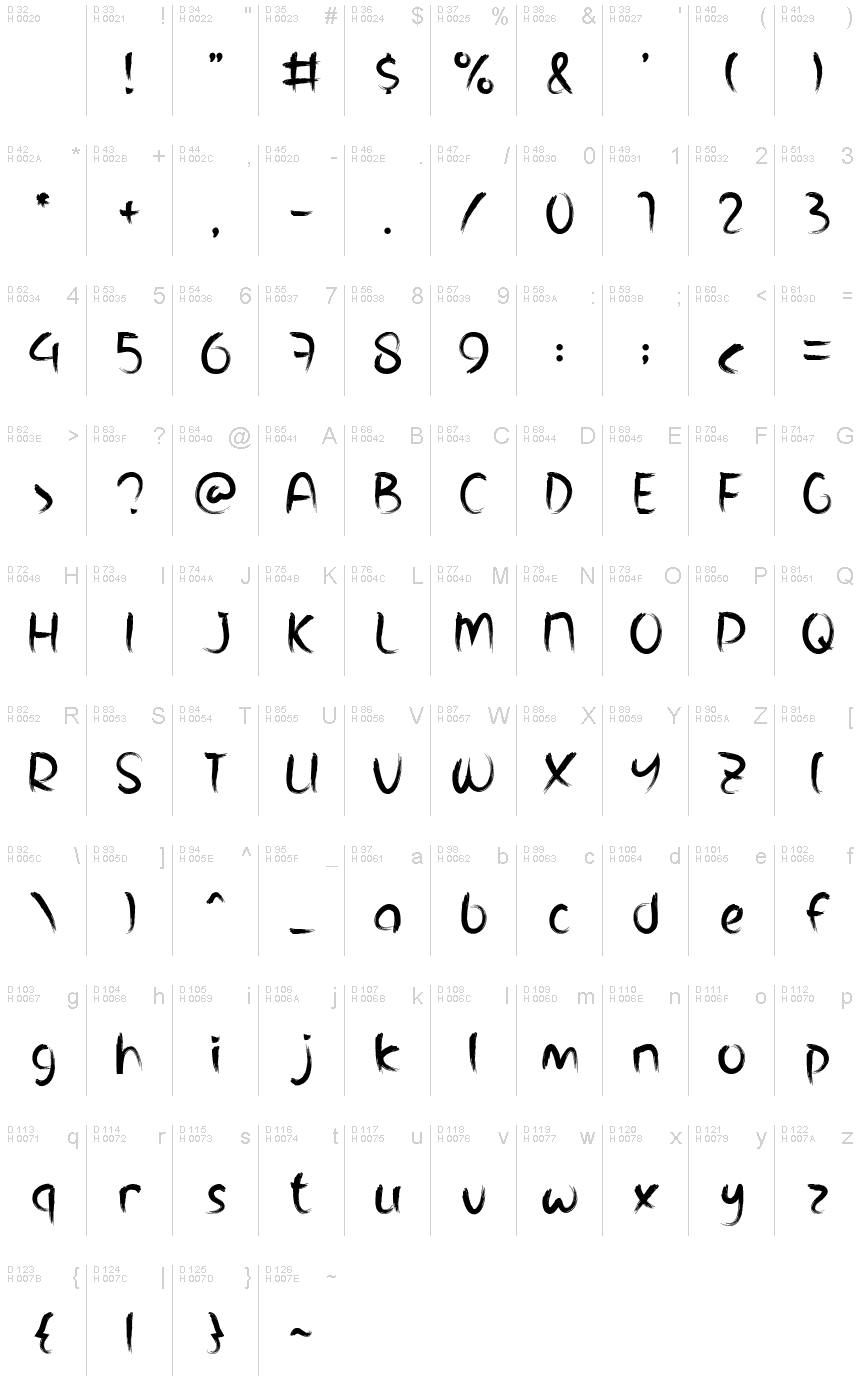
HALLO HALLOWEEN
With its playful brush strokes and semi-light weight, Hallo Halloween, designed by Morning Time Studio, is the perfect font for a variety of projects.
Its whimsical style brings a touch of fun to children's book covers, creating a spooky atmosphere for Halloween party invitations. The semi-light weight makes it easy to read on digital screens, making it an excellent choice for websites and social media graphics. Hallo Halloween adds a hint of spookiness to branding materials for haunted houses or costume shops.
Let your creativity run wild with this unique font!